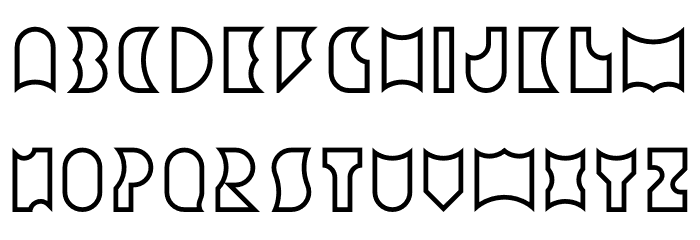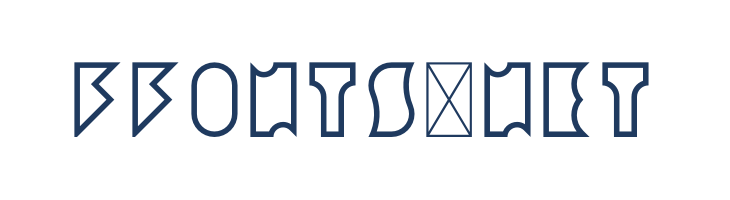
Amneziak Lined Bold Font
This font features a bold, geometric style with sharp angles and distinct lines. Each character is outlined with a consistent thickness, creating a striking visual impact. The uppercase letters have a futuristic and edgy appearance, while the lowercase letters maintain the same angular design, ensuring uniformity across the typeface. The numbers and special characters follow the same design principles, making them cohesive with the rest of the set. This font's unique style is ideal for projects that require a modern and bold statement.
A bold, geometric font with sharp angles and consistent outlines.
- Proposed Projects: Ideal for branding, posters, album covers, and any project needing a modern, bold statement.